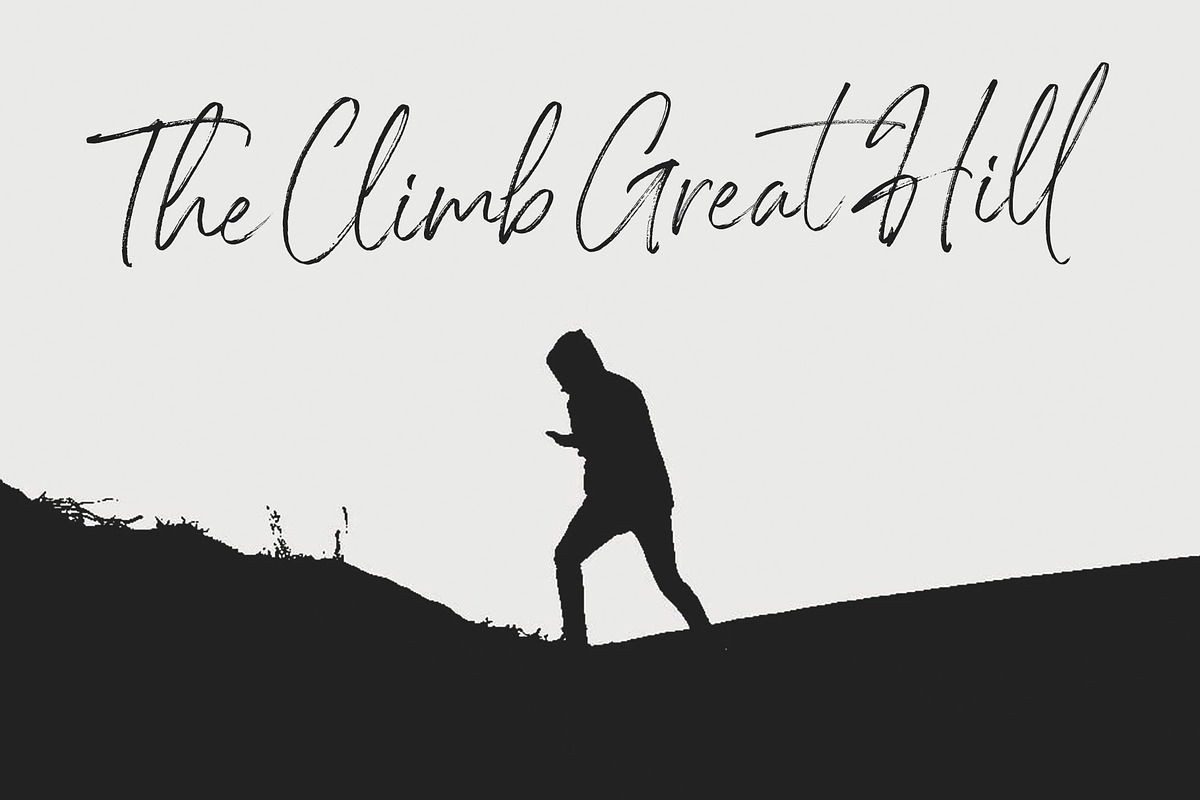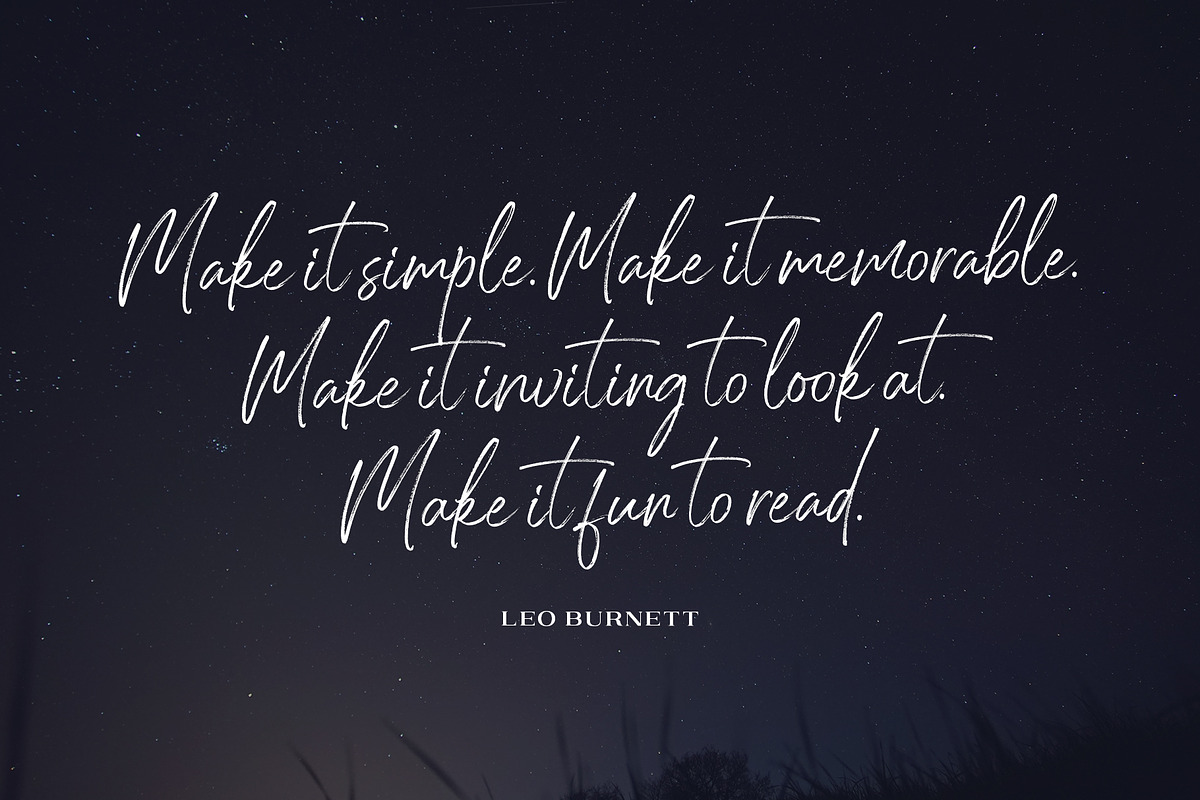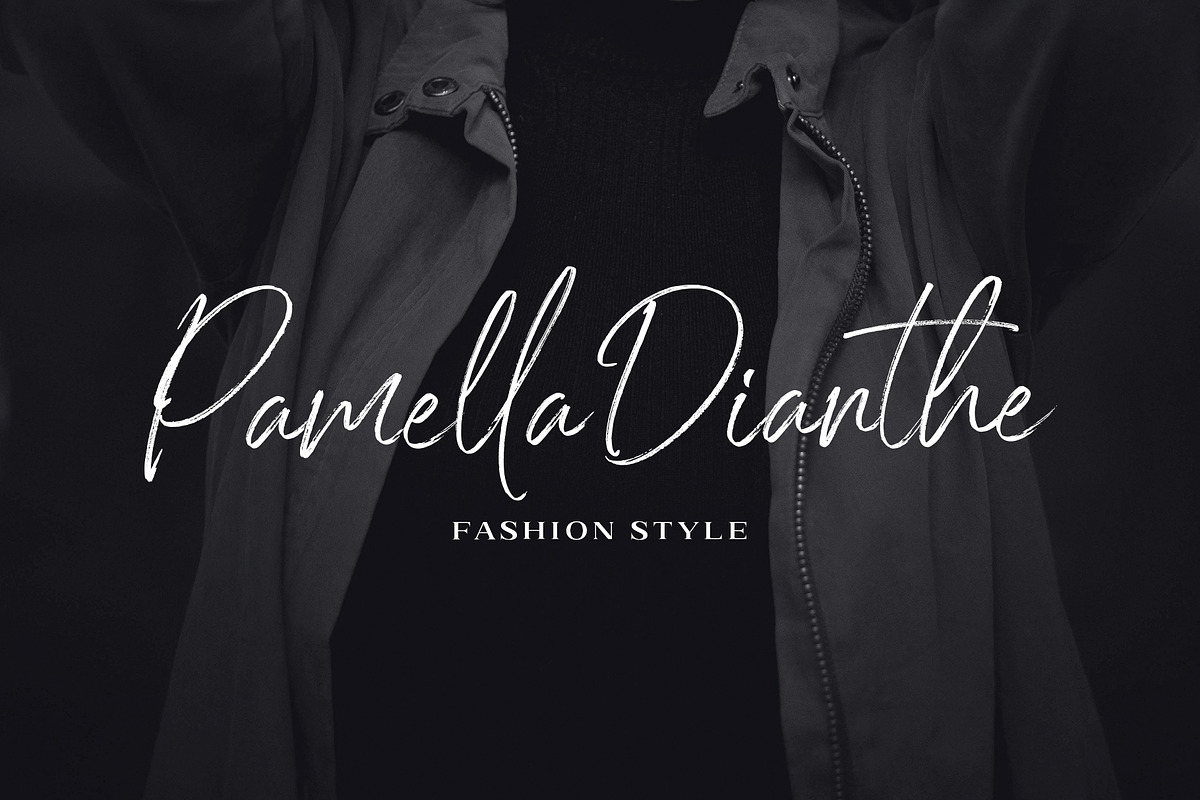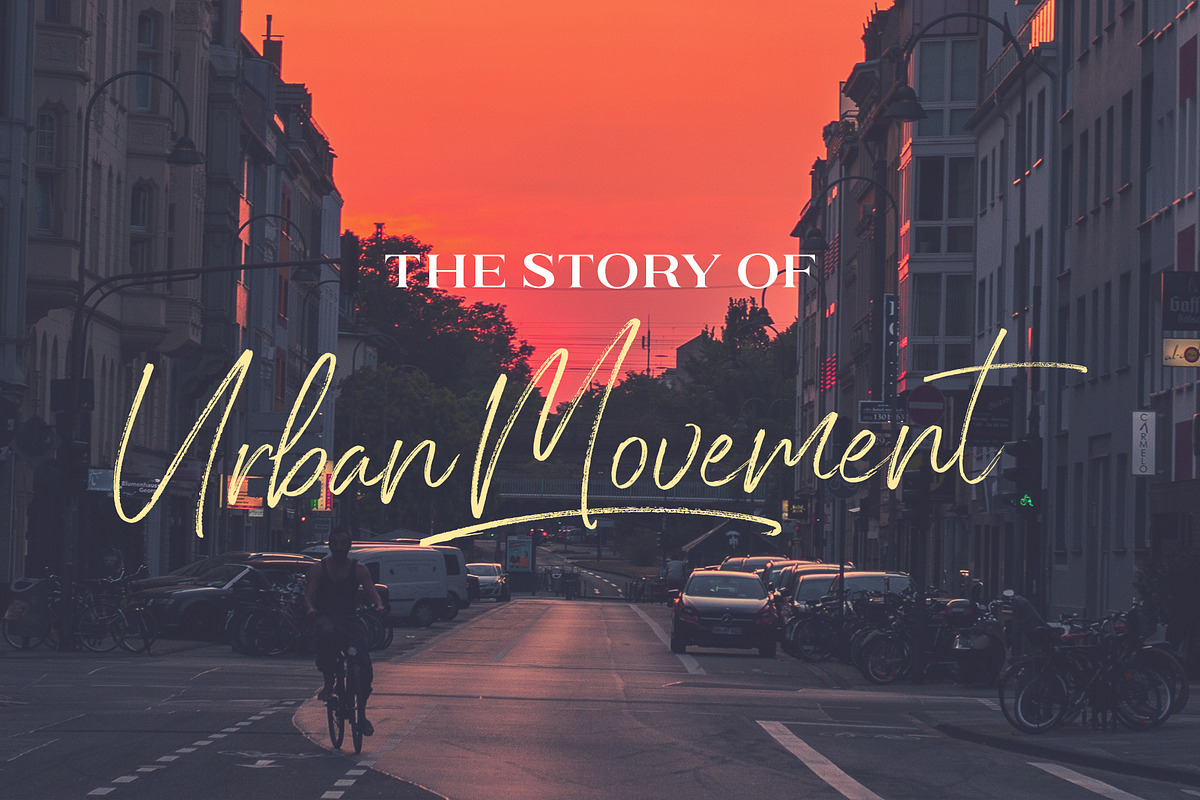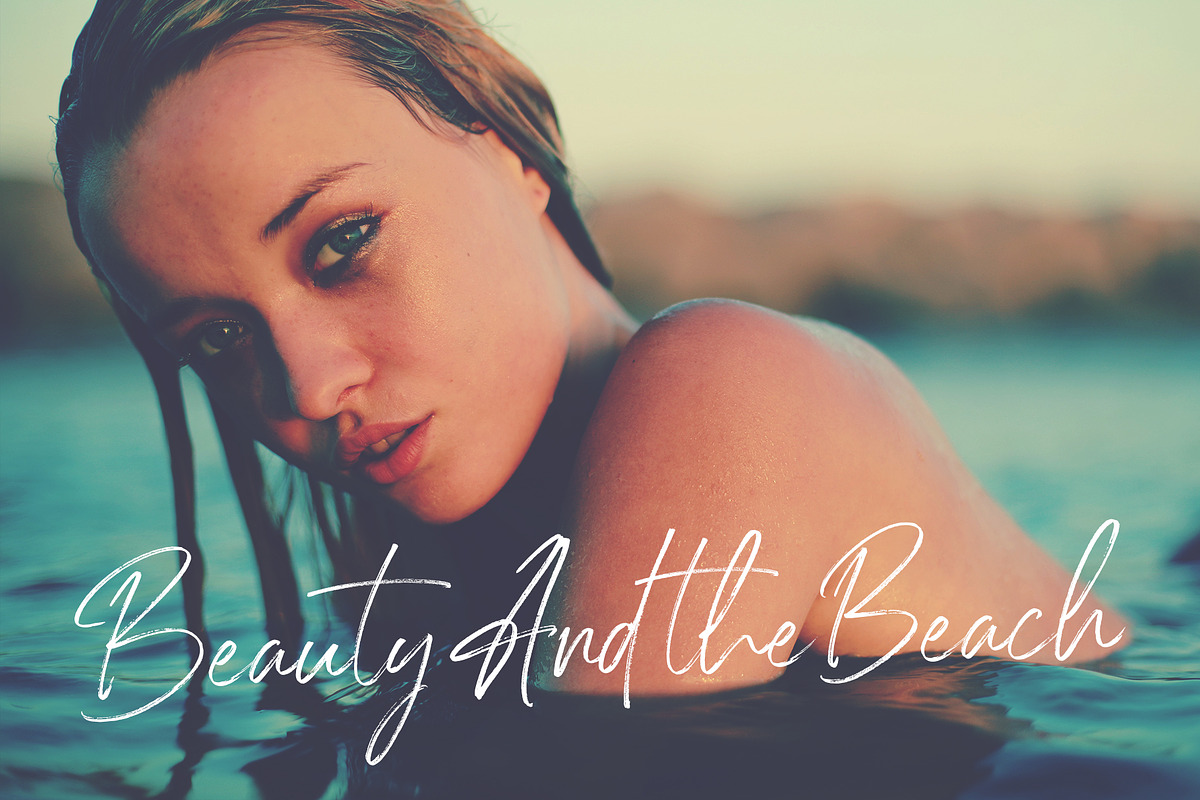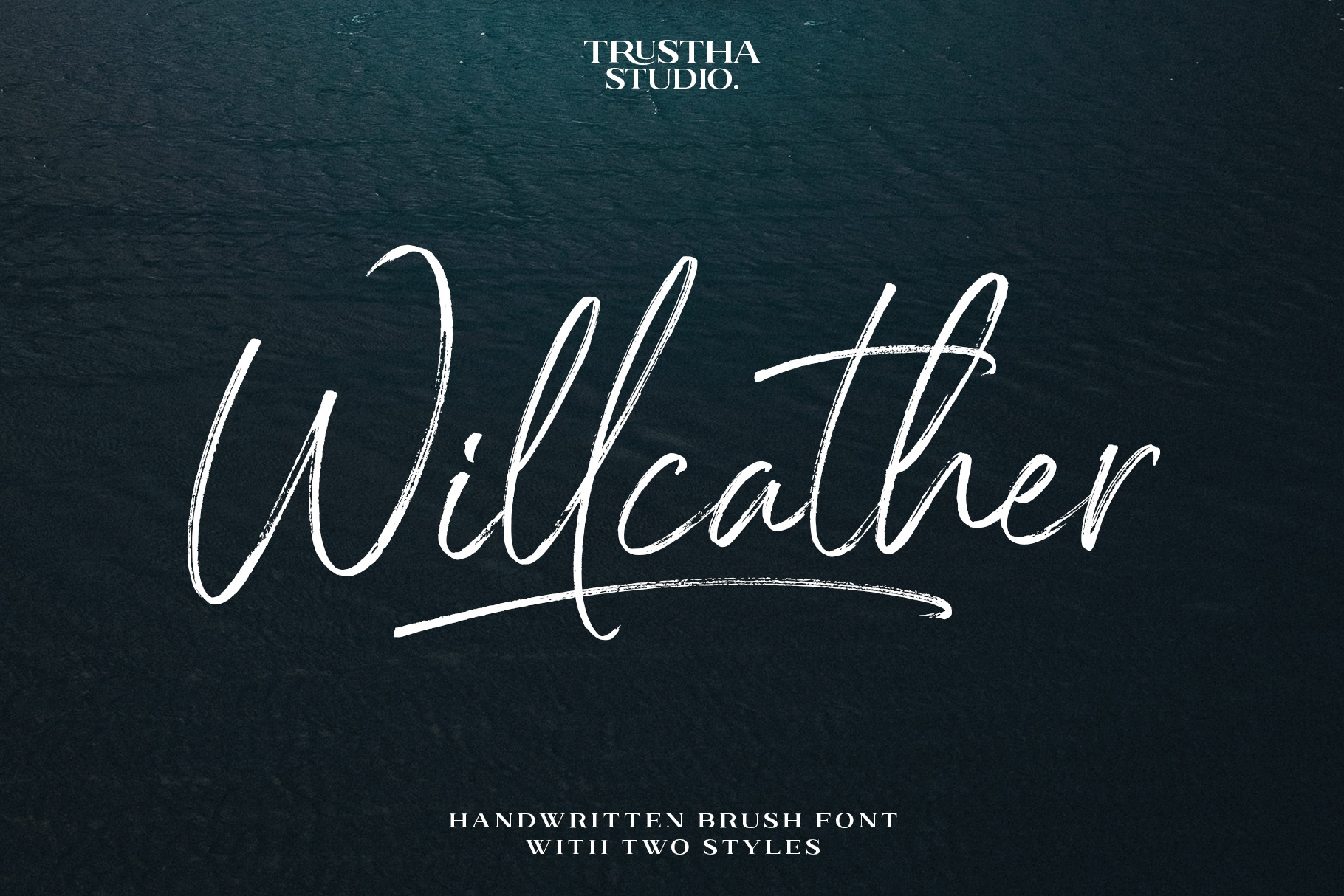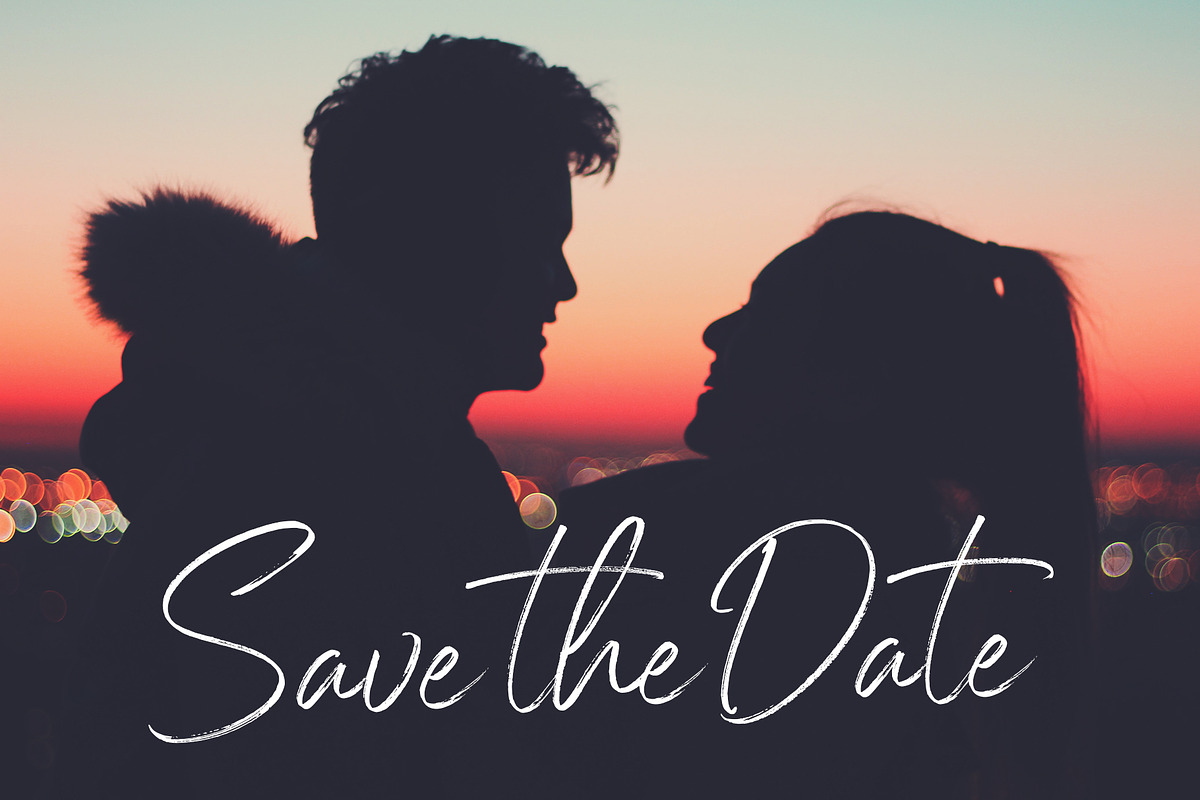
Willcather Font
Willcather is a handwritten font, with sharp details. Written with a dry brush pen with quick movements, and relaxed. Comes with two font styles, it will be beautiful, and unique when combining both into one unit. And be perfect, when coupled with swash. Suitable for branding, advertising, headlines, packaging design, and more.
- Number & punctuation symbols
- Regular, alternates and swash
- International characters (Multilingual)